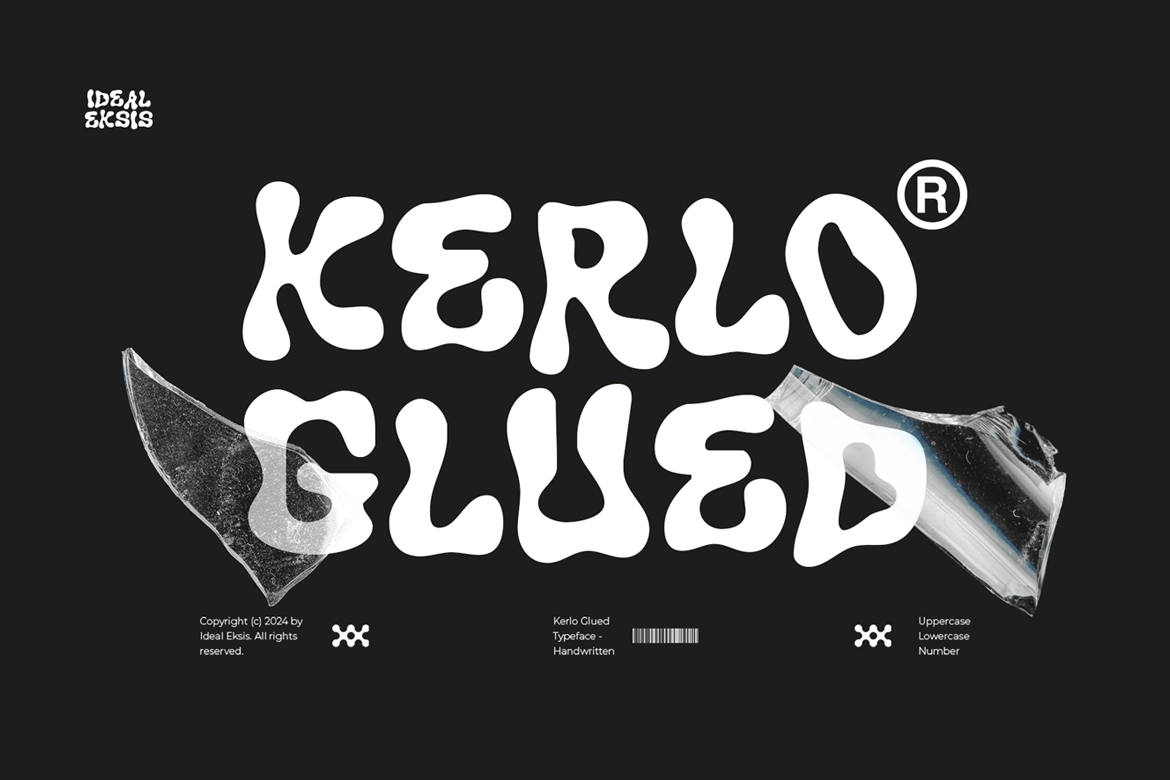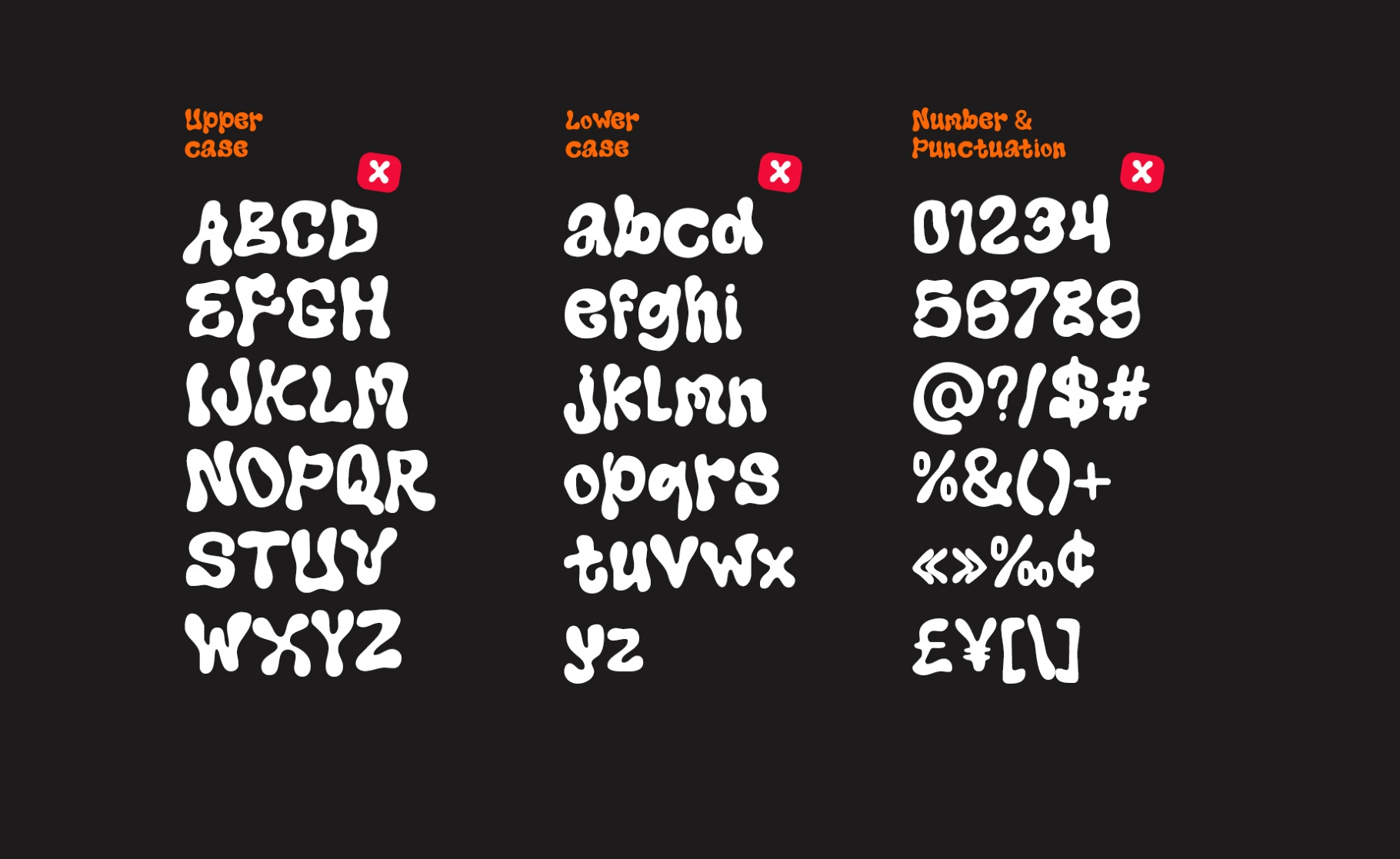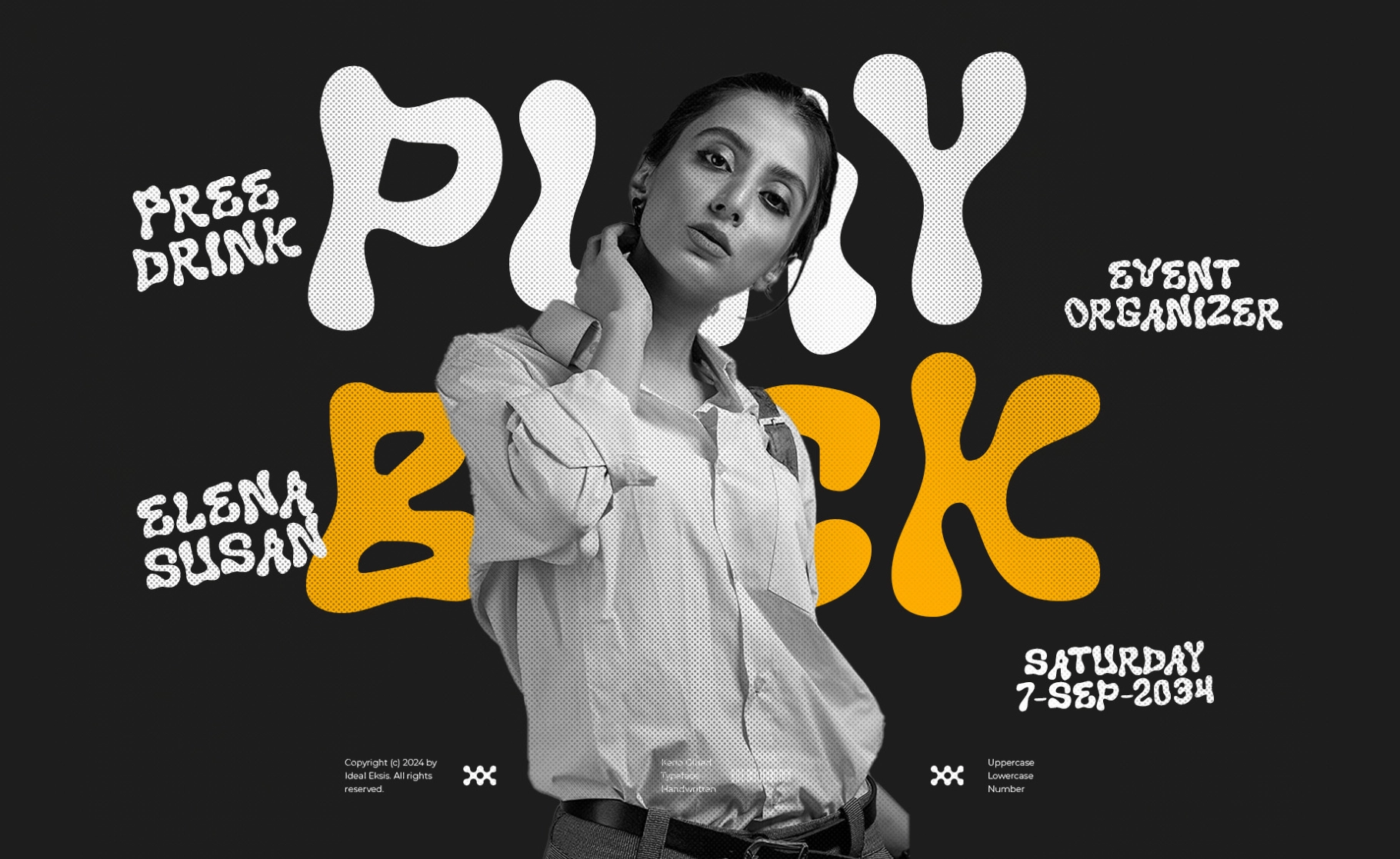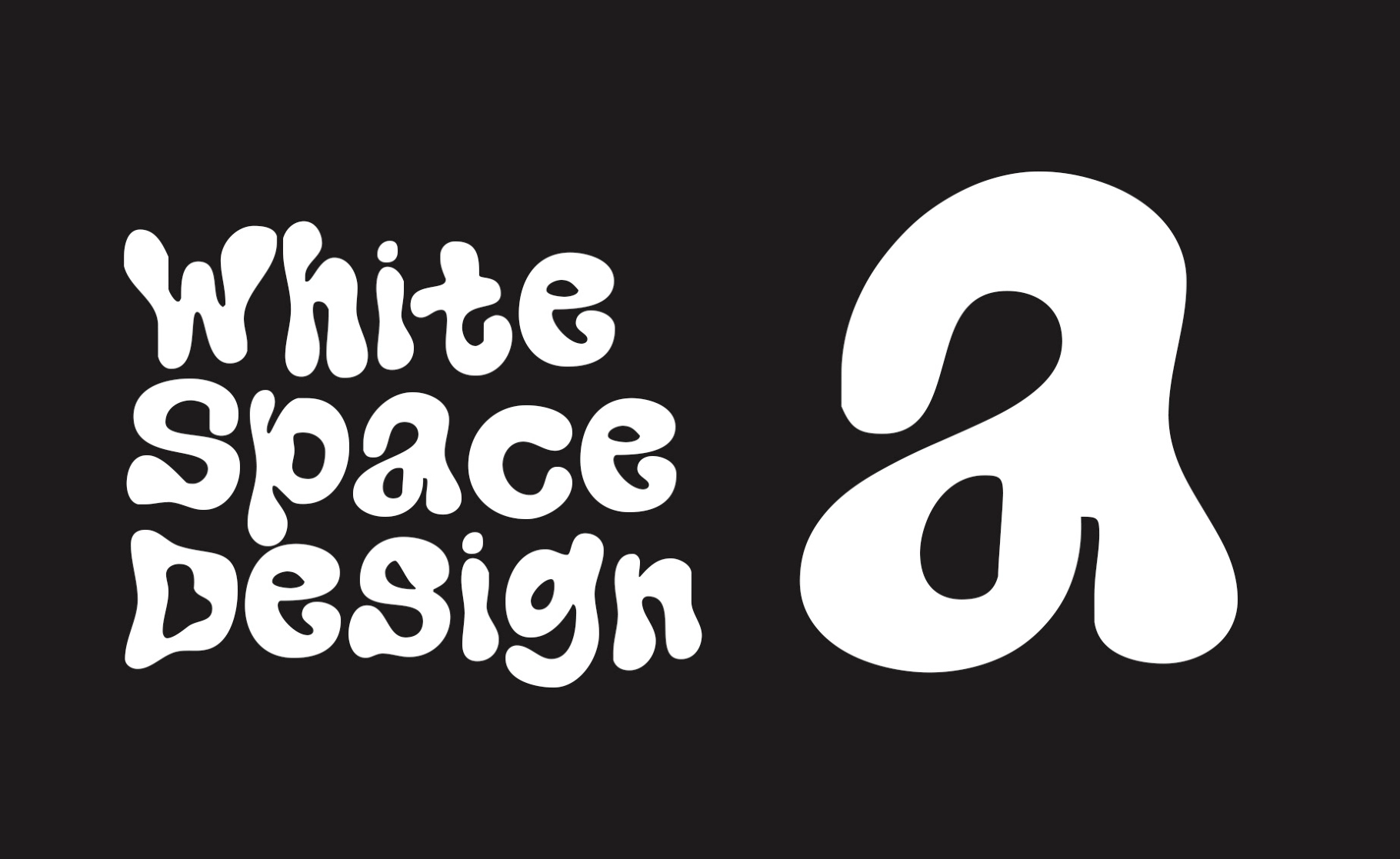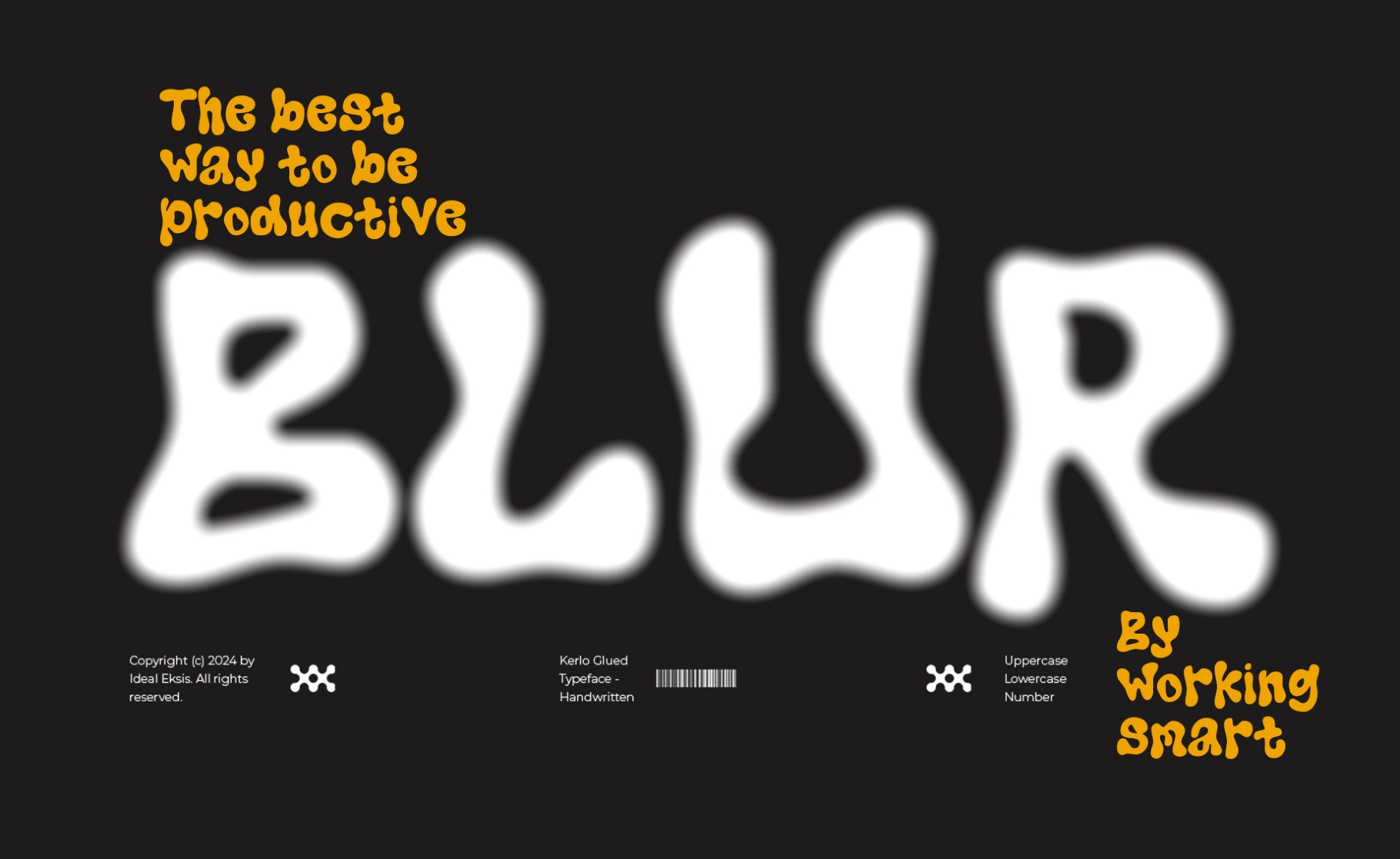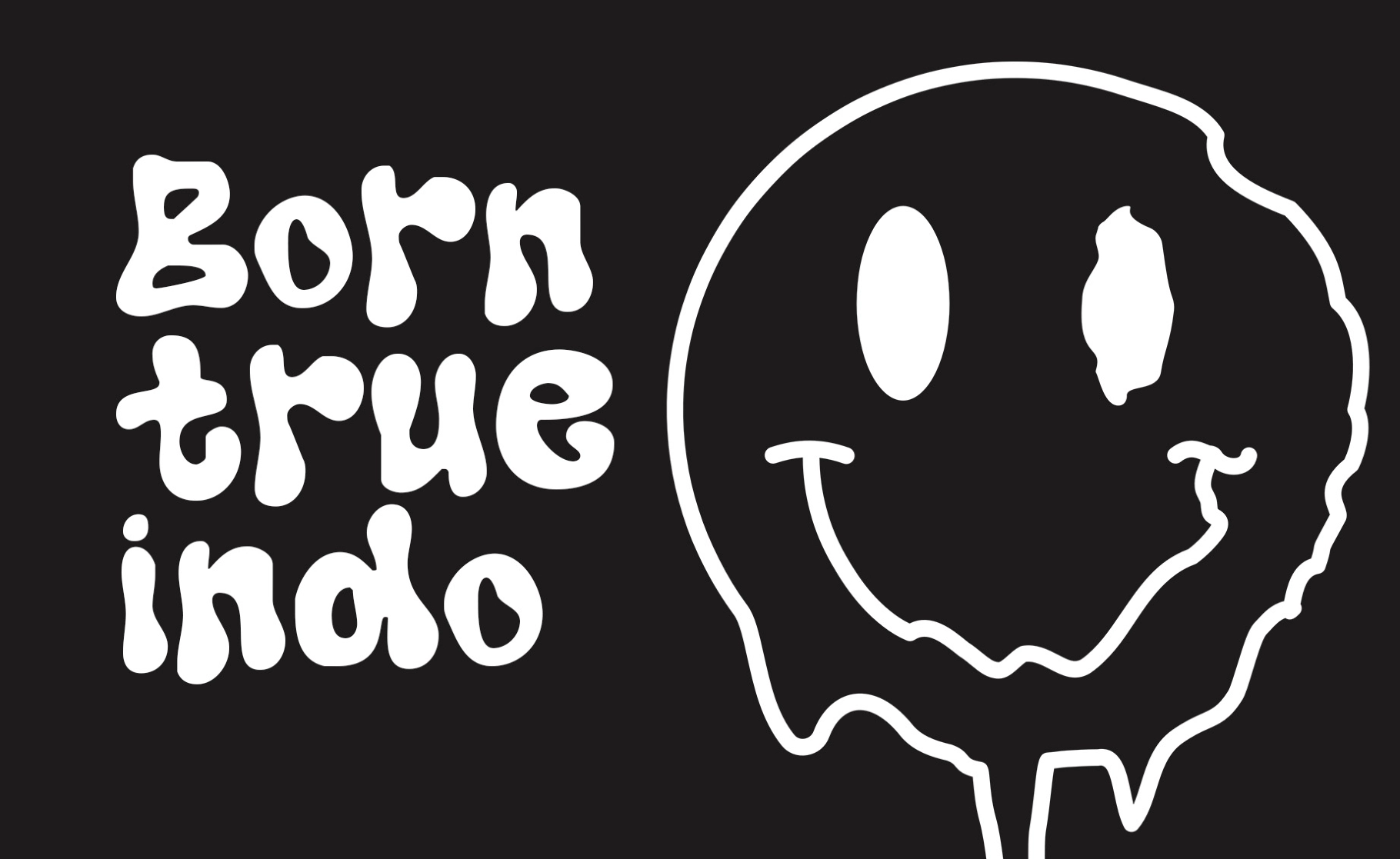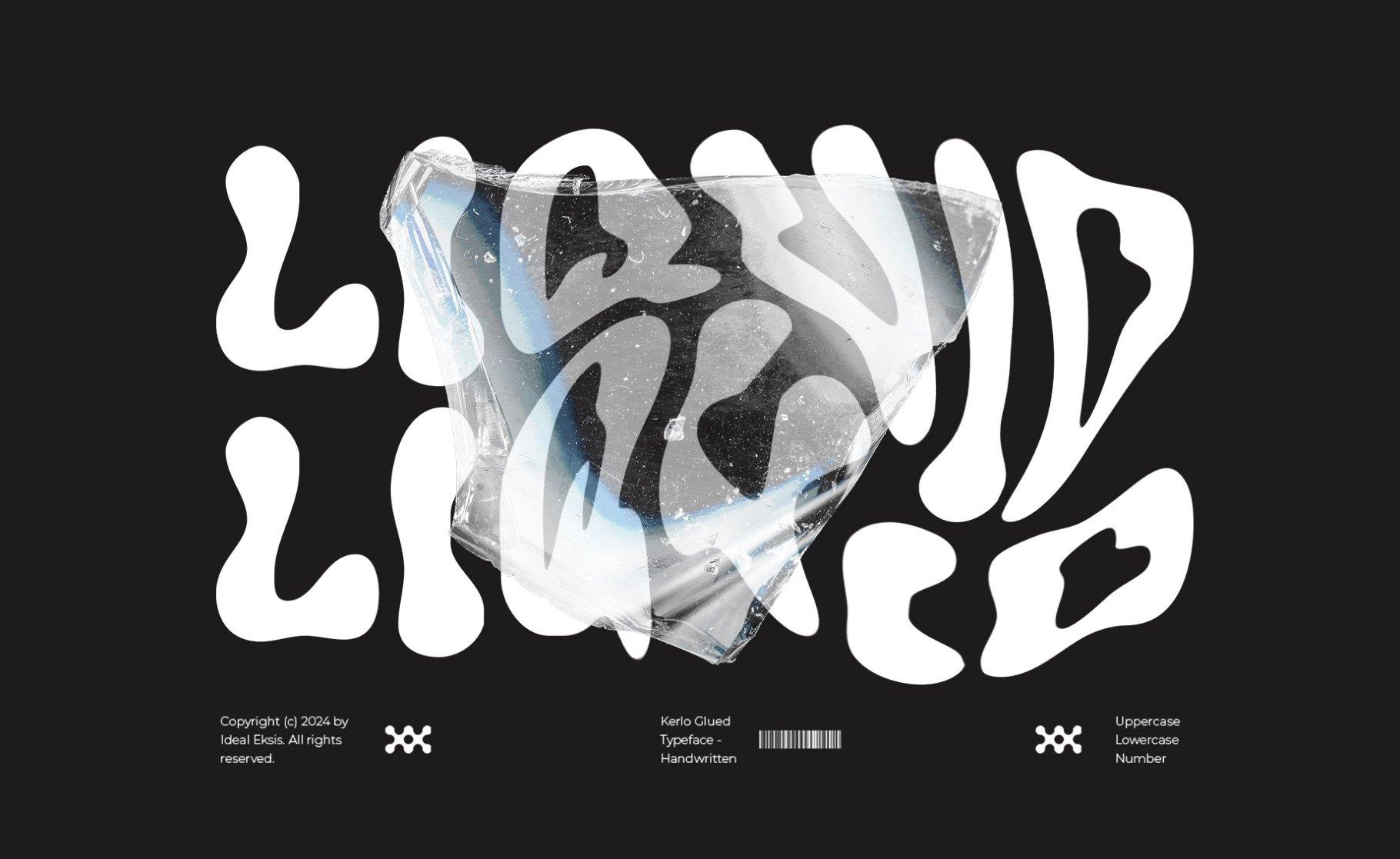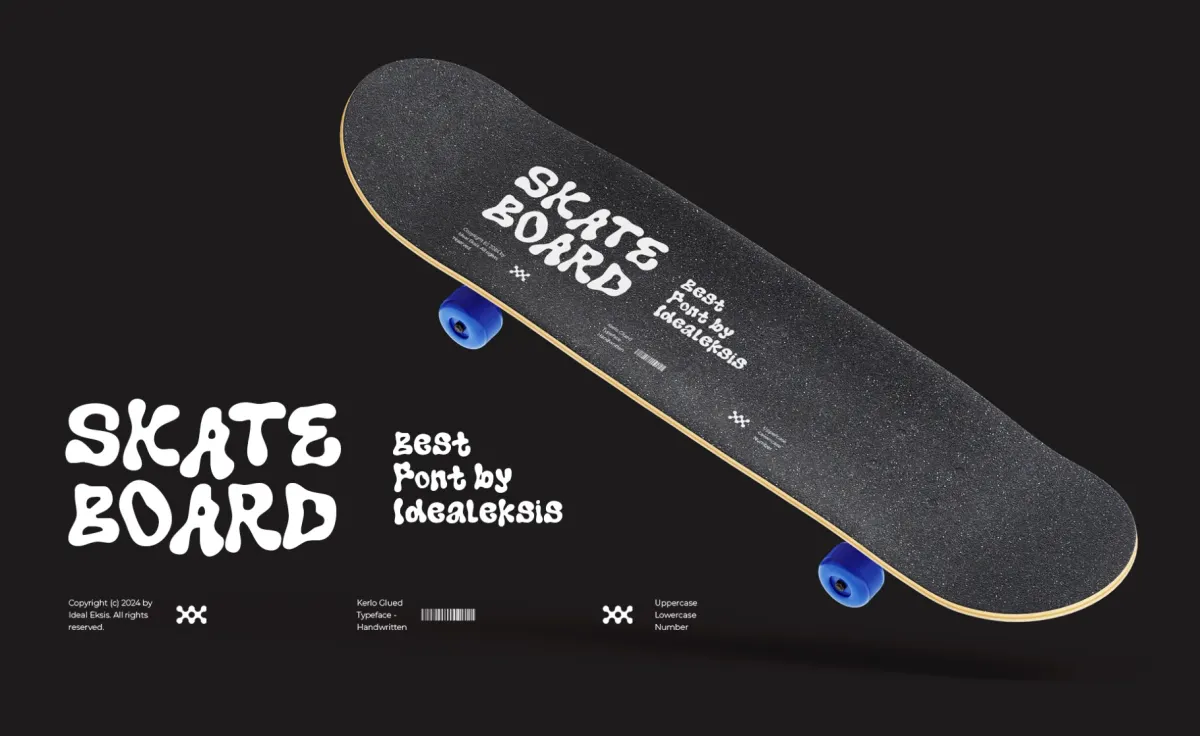
Kerlo Glued - Playful Blob Display Font
Kerlo Glued
Kerlo Glued – Playful Blob Display Font is a bold and expressive typeface with a fluid, melted aesthetic. Its soft, glue-like shapes and irregular contours create a fun yet edgy look, making this playful blob display font perfect for designs that need strong personality and visual impact.
The organic letterforms and rounded edges give it a handmade, experimental feel, while the thick weight ensures high readability in headlines and standout compositions. Whether you're working on posters, streetwear branding, album covers, or social media graphics, Kerlo Glued brings a unique and artistic energy to every design.
- Uppercase letters
- Lowercase letters
- Numerals and punctuation